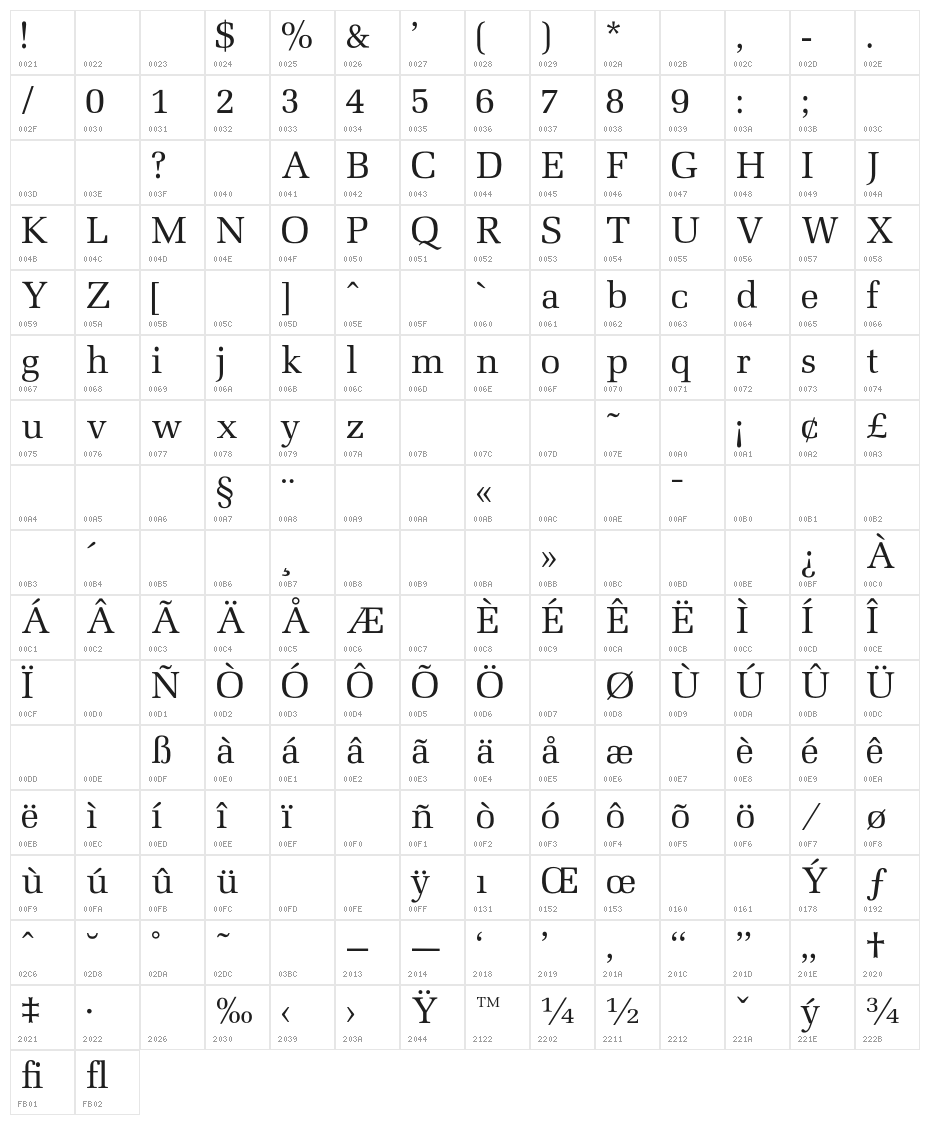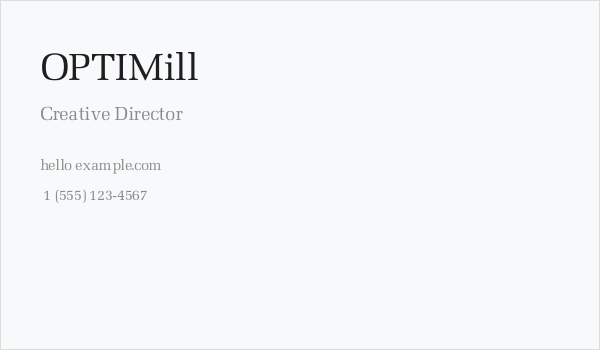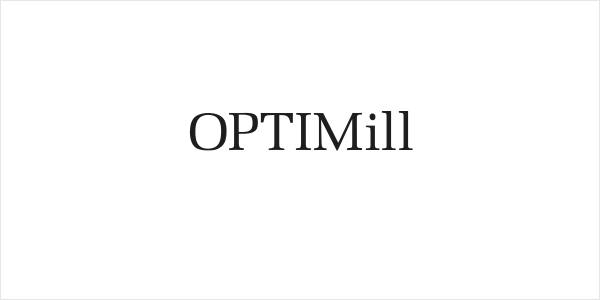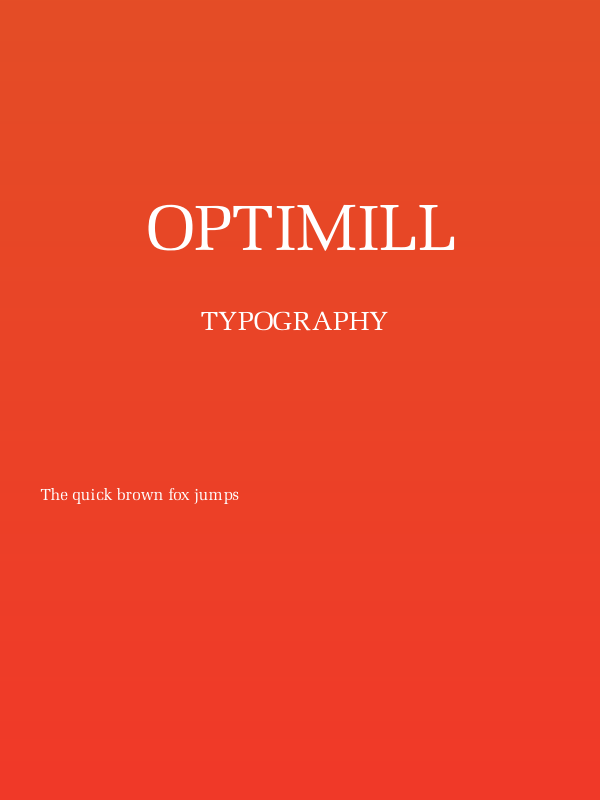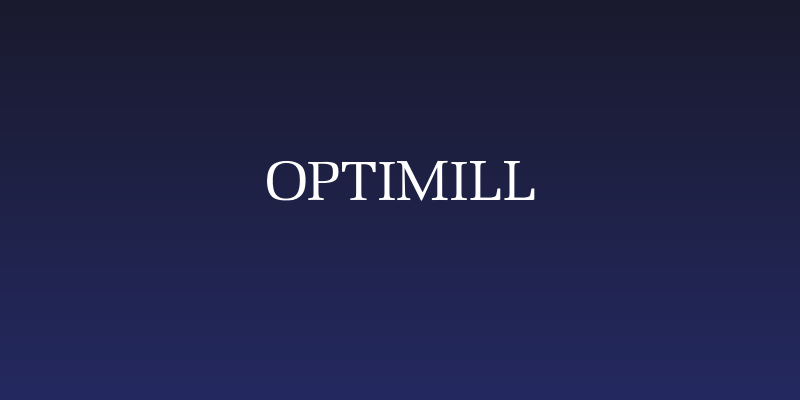
OPTIMill Font
OPTIMill Description
This font features a classic serif style with a modern twist, characterized by its elegant and refined letterforms. The uppercase letters are bold and commanding, while the lowercase letters maintain a graceful and sophisticated appearance. The numerals are clear and distinct, ensuring readability. Special characters are well-defined, adding versatility to the font. The overall design is balanced, with a moderate contrast between thick and thin strokes, making it suitable for a variety of applications.
Proposed ProjectsIdeal for editorial design, book covers, branding, and high-end product packaging.